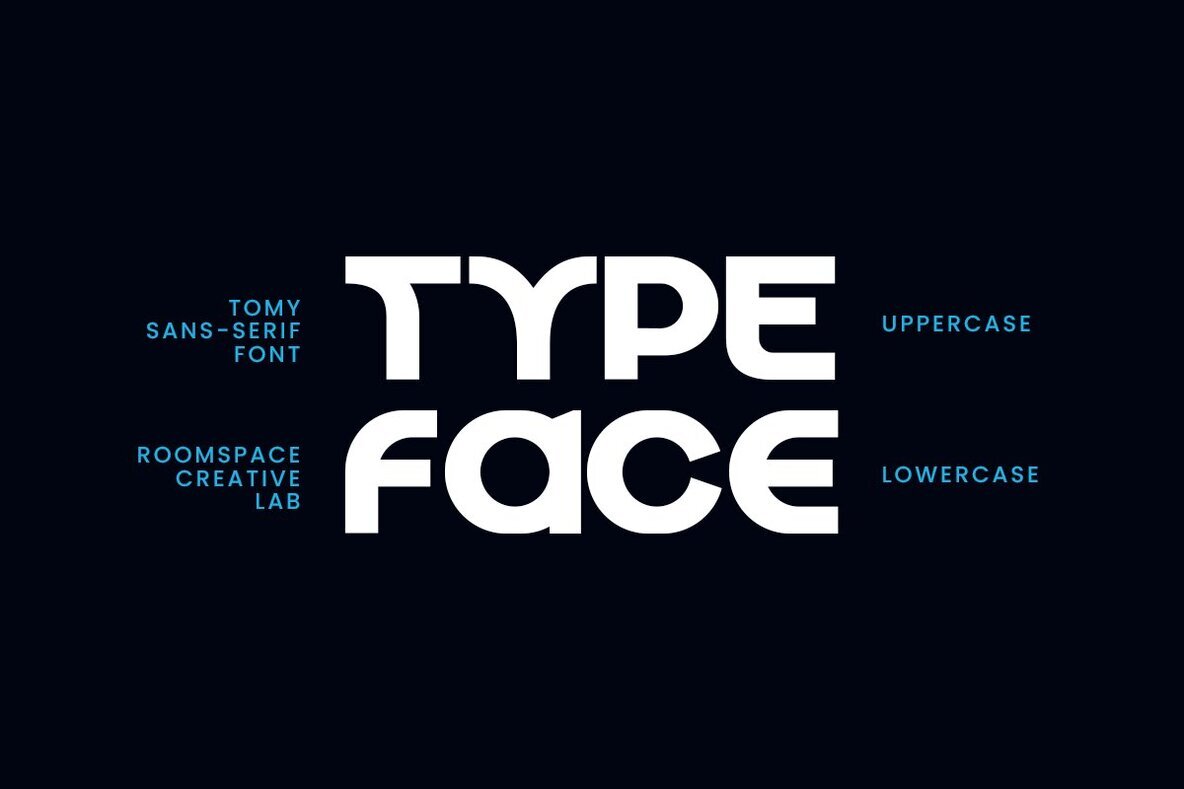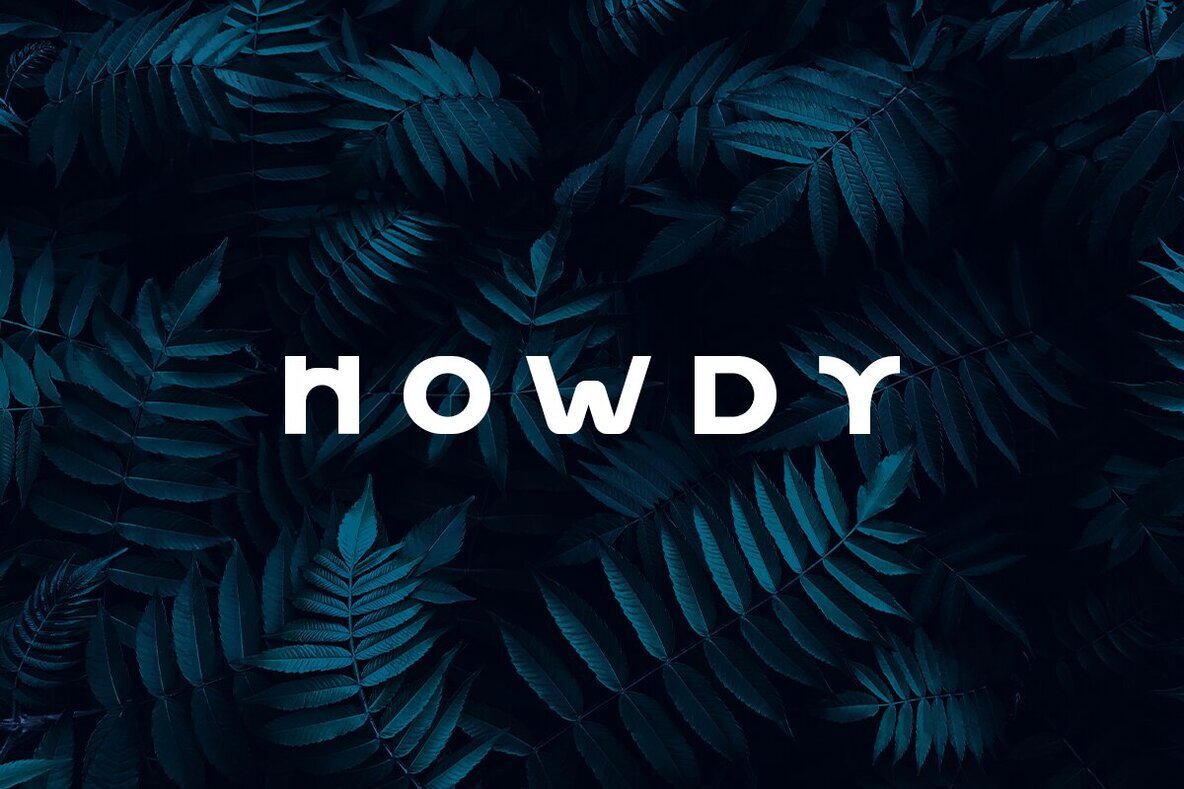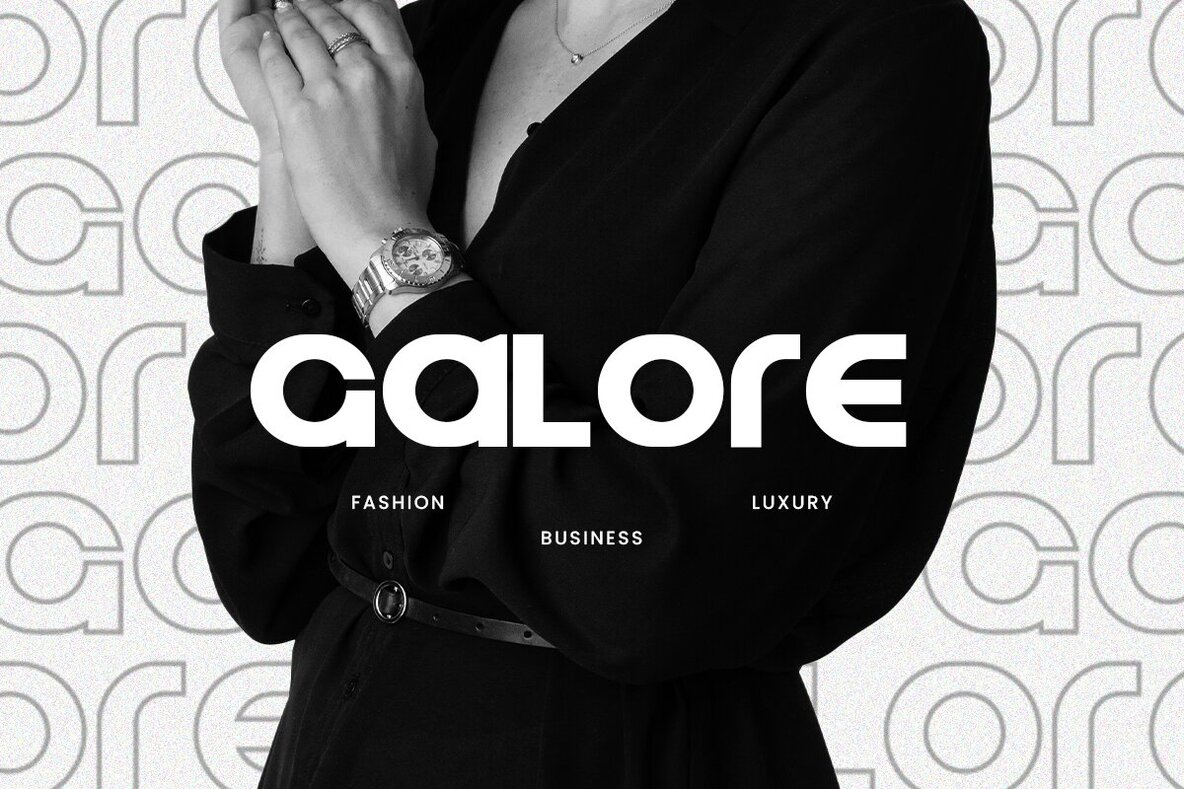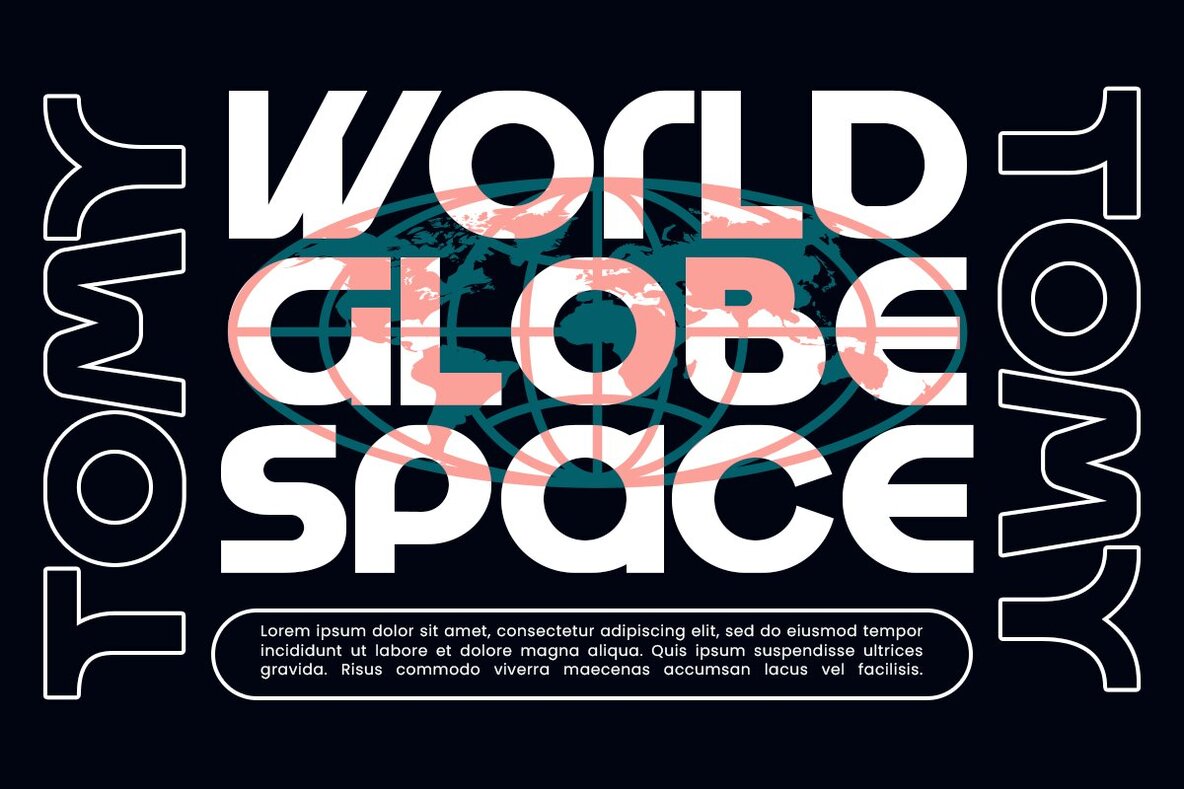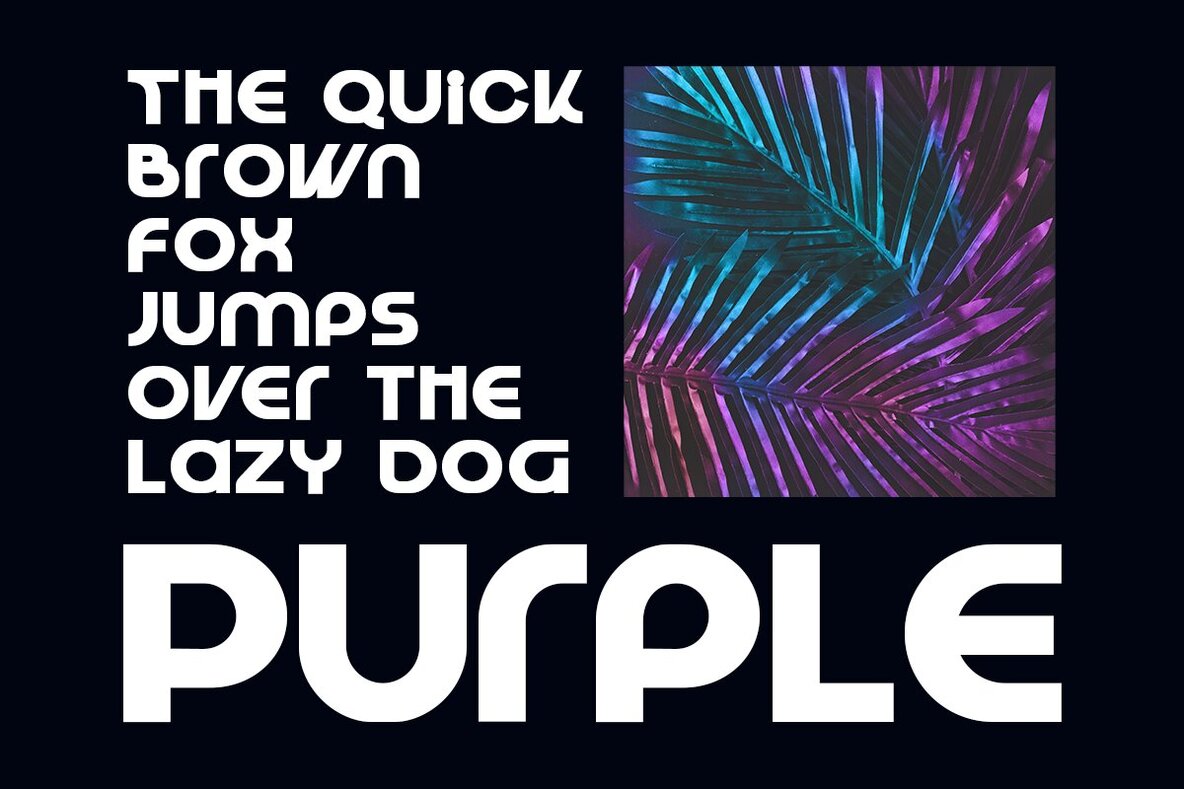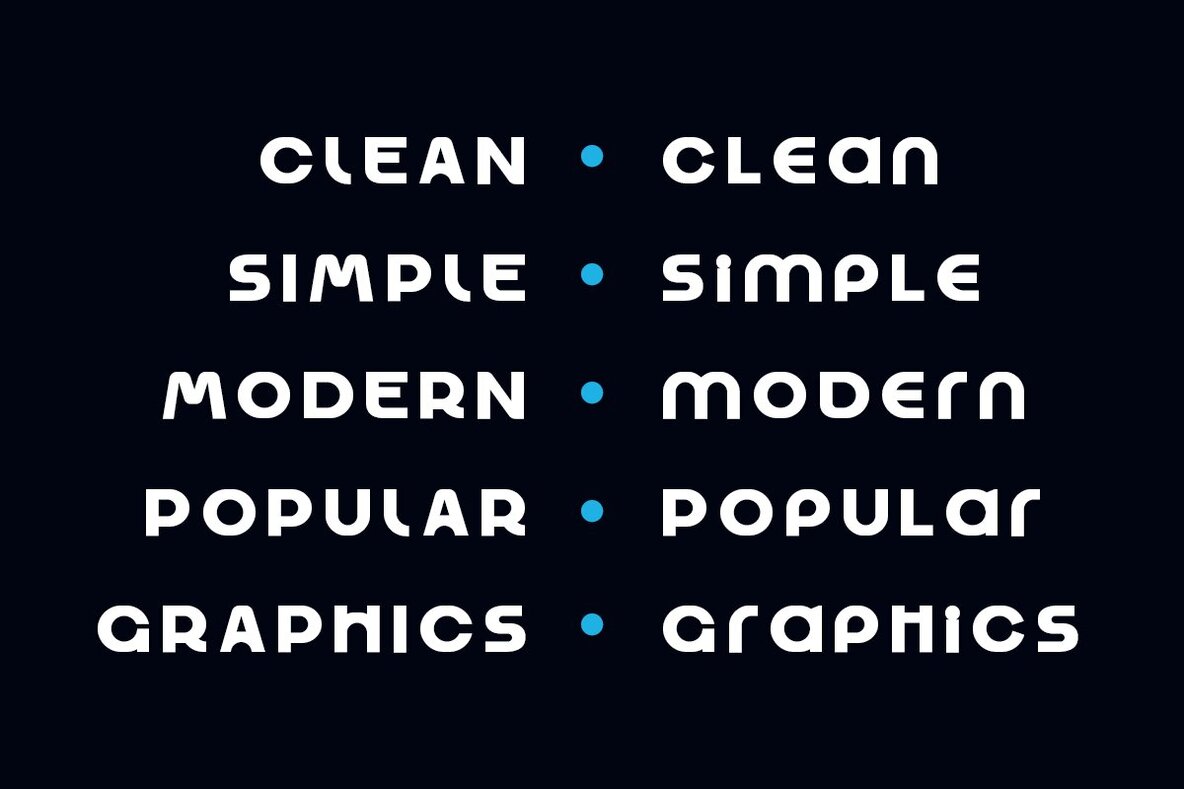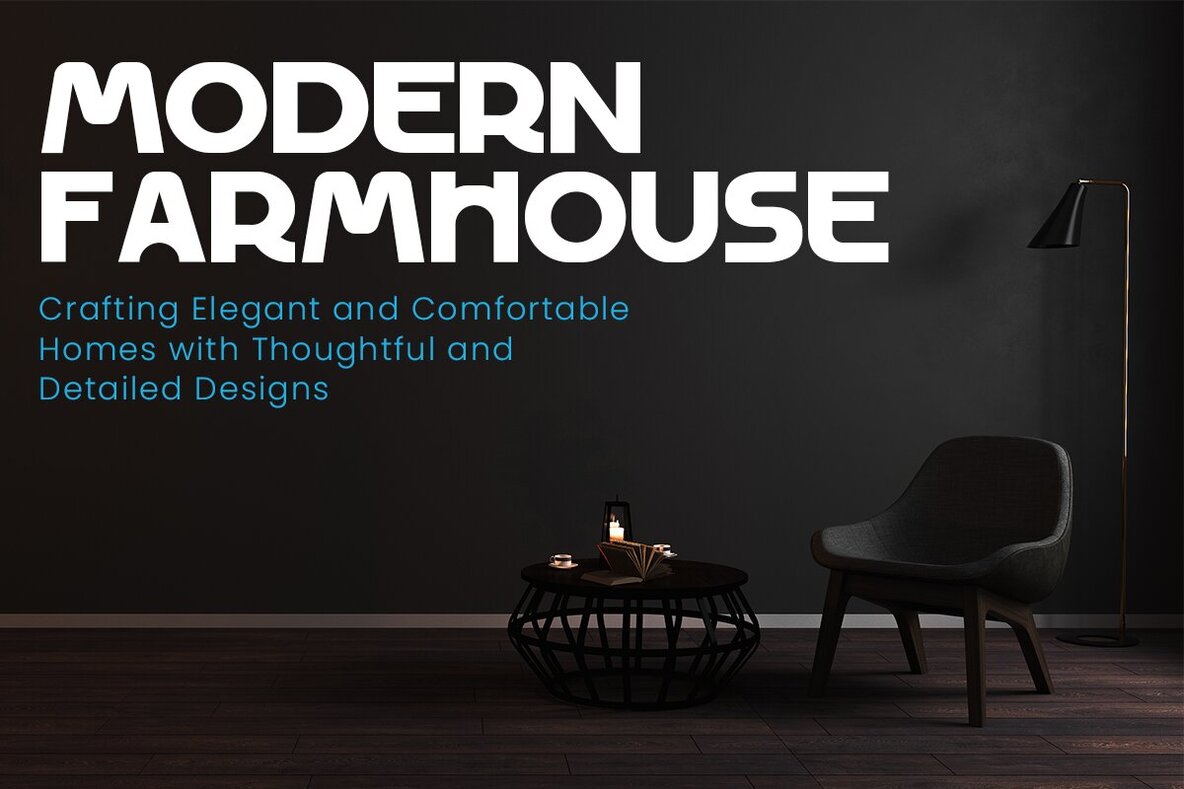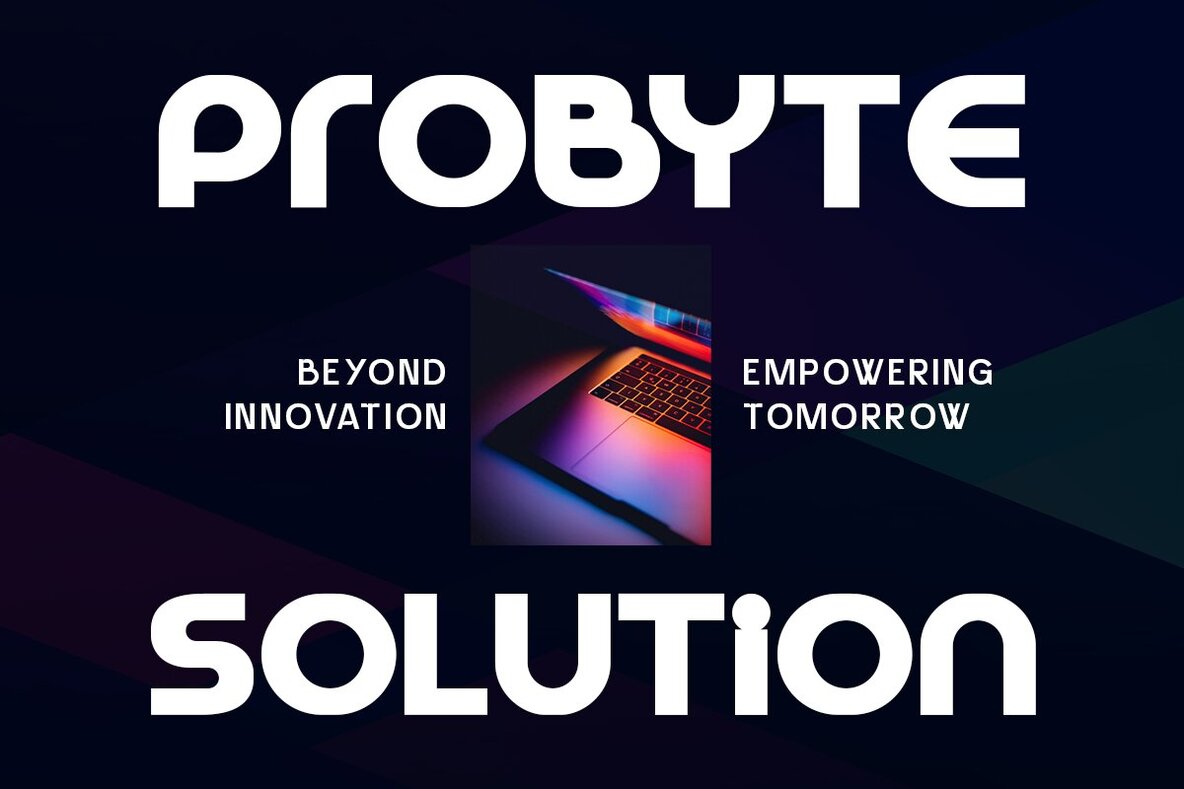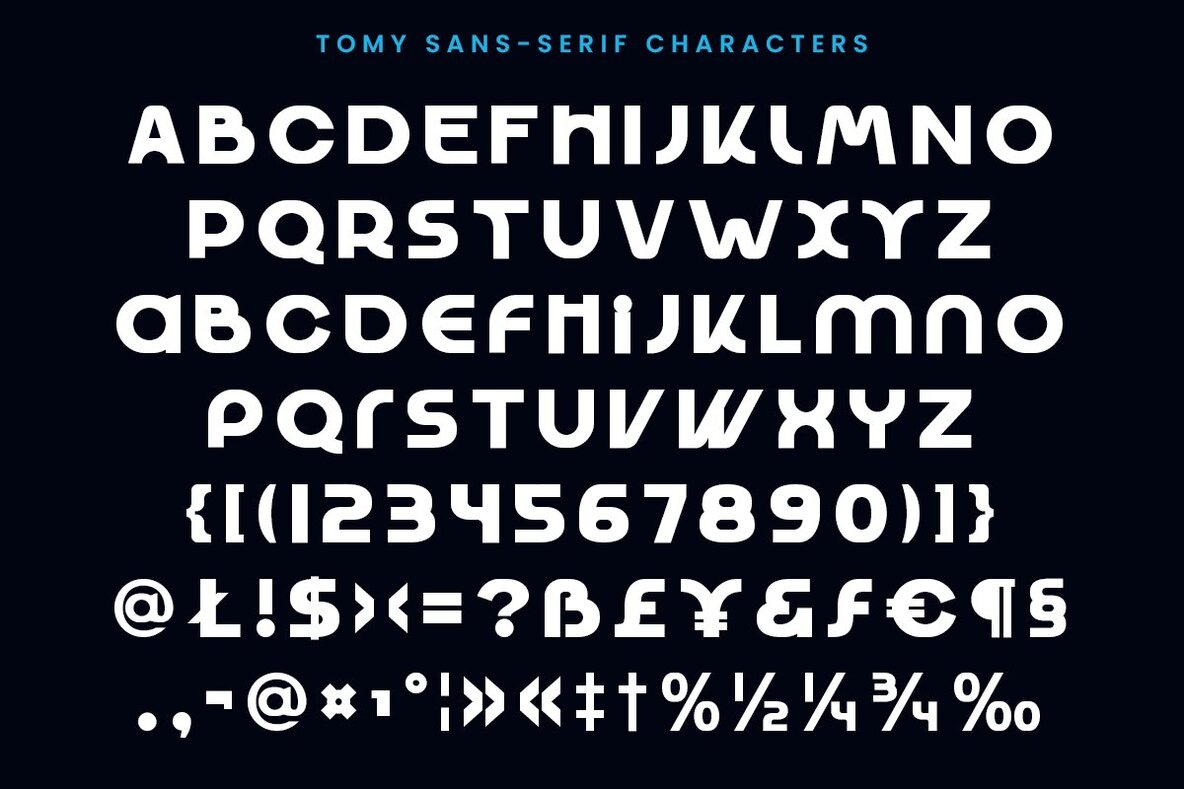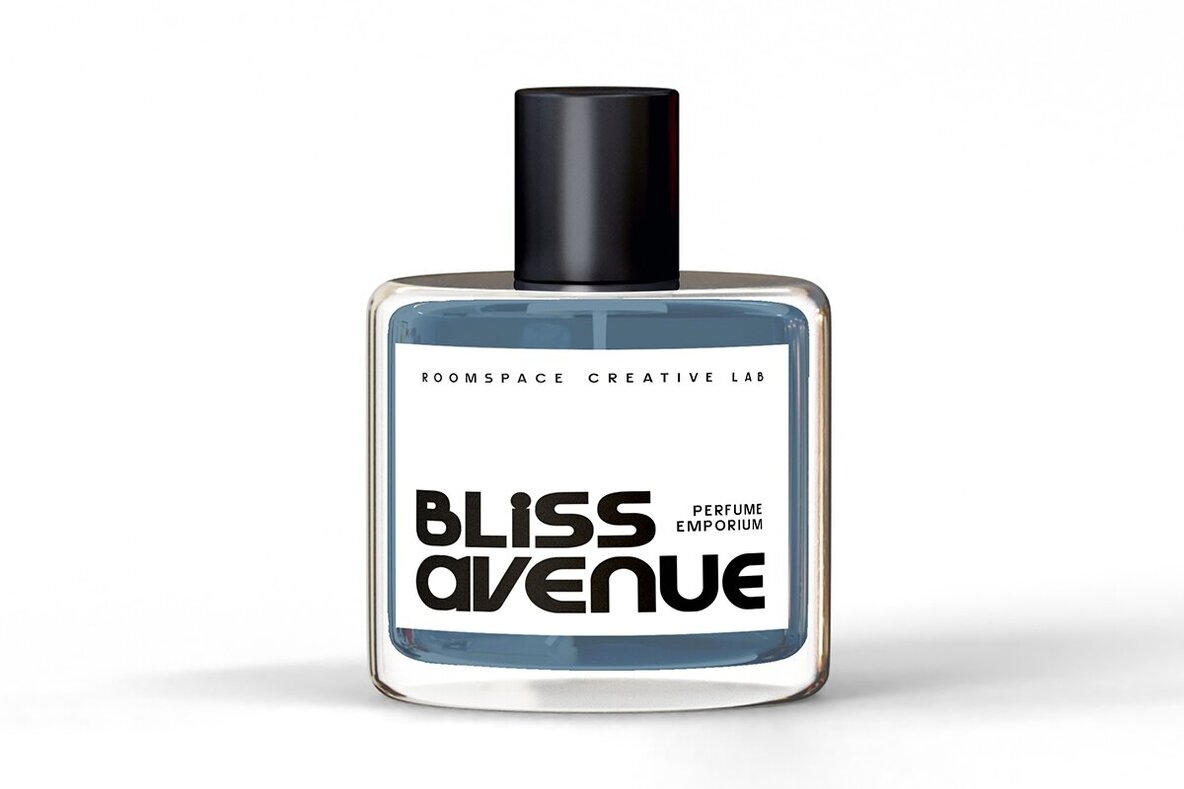
Tomy Font
Tomy Regular
Discover the perfect blend of modernity and timeless elegance with the Tomy Modern Sans Serif Font. Designed for creators who seek simplicity without sacrificing style, this font brings a touch of sophistication to any project. Whether you're designing a brand logo, a website header, or an eye-catching poster, Tomy ensures your message is delivered with clarity and class. Its clean lines and balanced proportions make it a versatile choice for any design need. Tomy Modern Sans Serif Font is your beacon of minimalist perfection. Its sleek and straightforward design ensures that your content stands out without unnecessary distractions. Ideal for modern brands looking to make a statement, Tomy is the epitome of less is more. Let your creativity shine with a font that speaks volumes through its simplicity and elegance. Fonts Features :